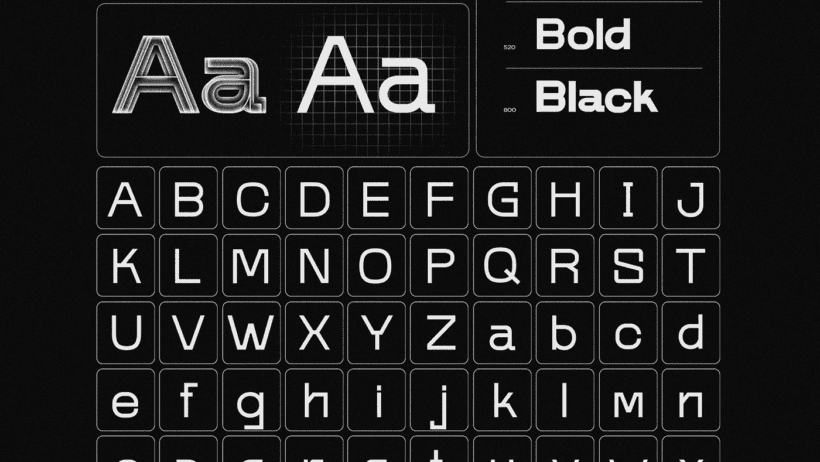
Curated Free Friday Fonts, Datatype, SONKO, inkt, Handpicked for Designers
Try three free fonts that shift design: Datatype makes charts inside text, SONKO’s brutalist variable, ink©t brings Y2K blobs.
Three Free Fonts That Redefine Typography
I curate typefaces that shape brand voice, and these three free releases demand attention. Datatype combines typography and data visualization, letting designers embed charts directly inside text with simple syntax. SONKO offers a brutalist variable system, stripping letterforms to confident structural essentials that scale beautifully. ink©t brings playful Y2K blobs, giving headlines instant personality and tactile energy. Each font opens distinct creative directions for identity, editorial, and interface work. As a branding expert, I recommend downloading all three, testing them in real projects, and expanding your typographic toolkit today.
Explore Datatype to prototype data rich interfaces fast, without extra libraries or scripting. Try SONKO across scales to anchor bold editorial spreads and confident logos. Use ink©t for posters, social headers, or playful campaigns that need instant visual attitude. All three fonts are free, open friendly, and ready to drop into your workflow. This collection proves experimentation with type can be strategic, not just decorative. Read the full breakdown for download links, specimens, and practical use cases you can try today. They offer immediate practical value for teams, independent studios, and solo designers refining modern, scalable brand systems with speed.